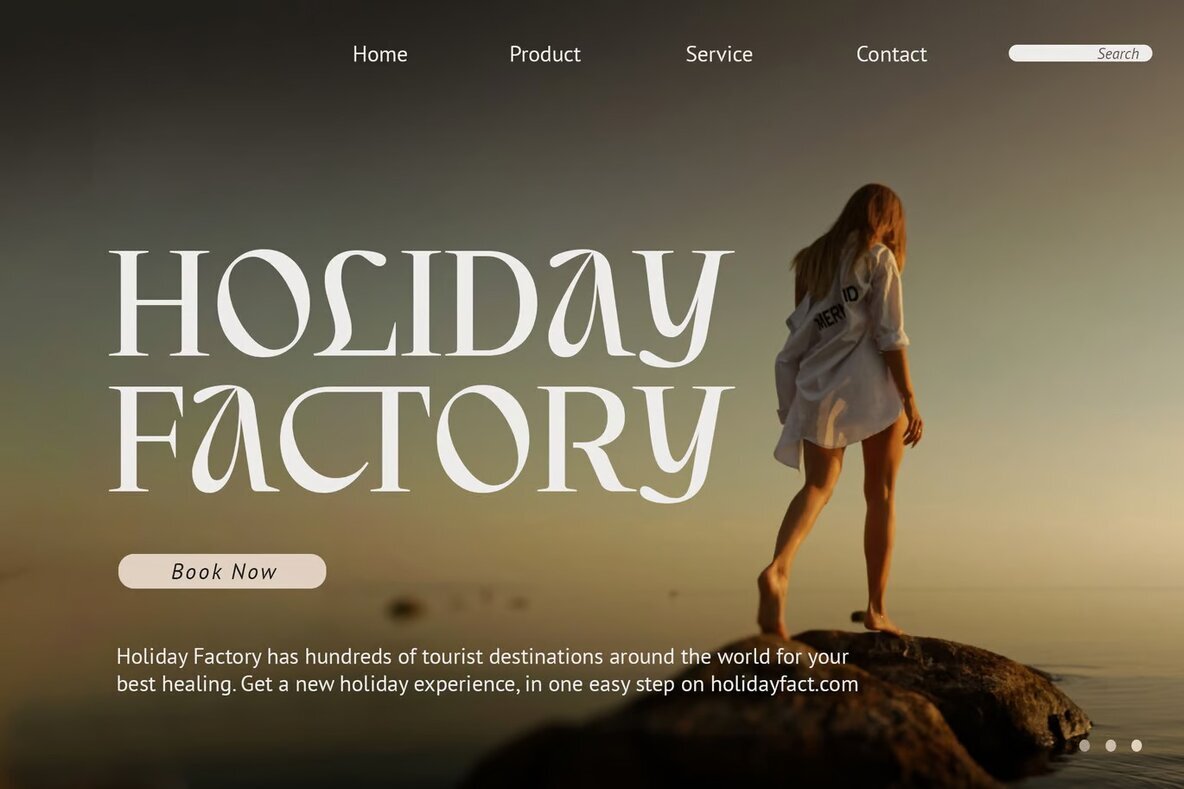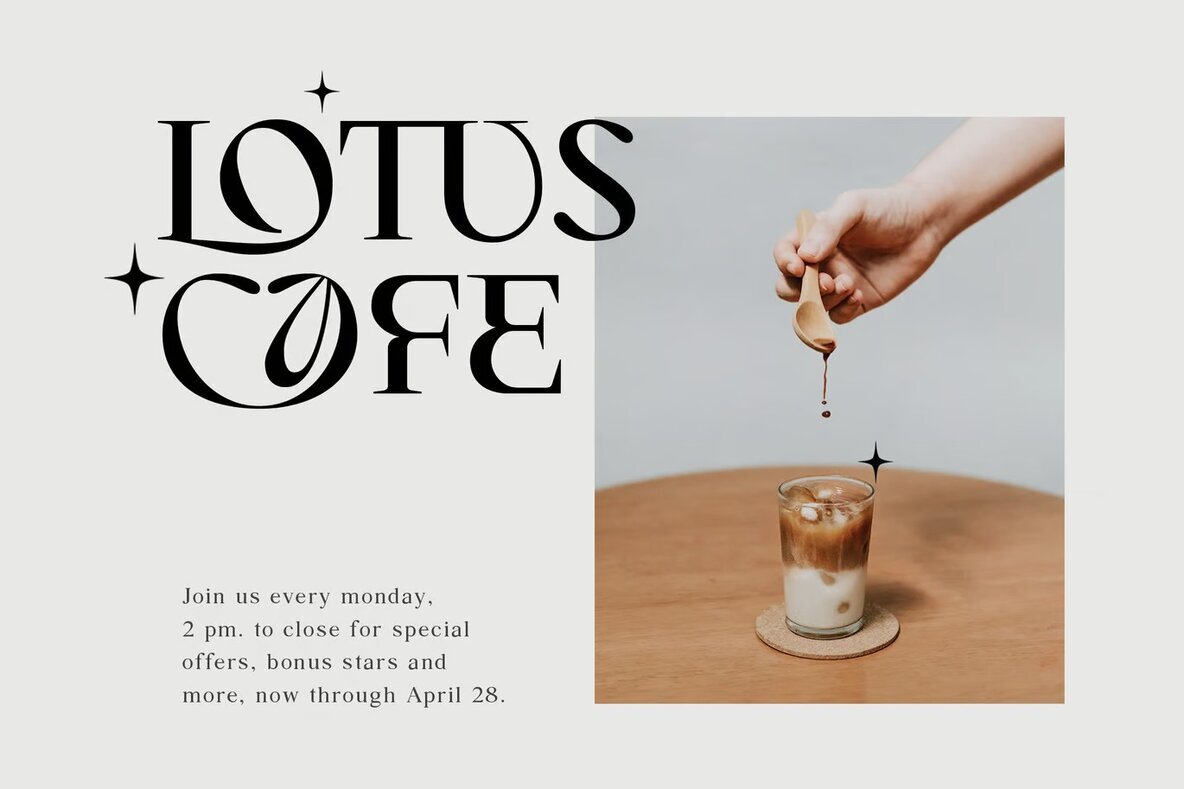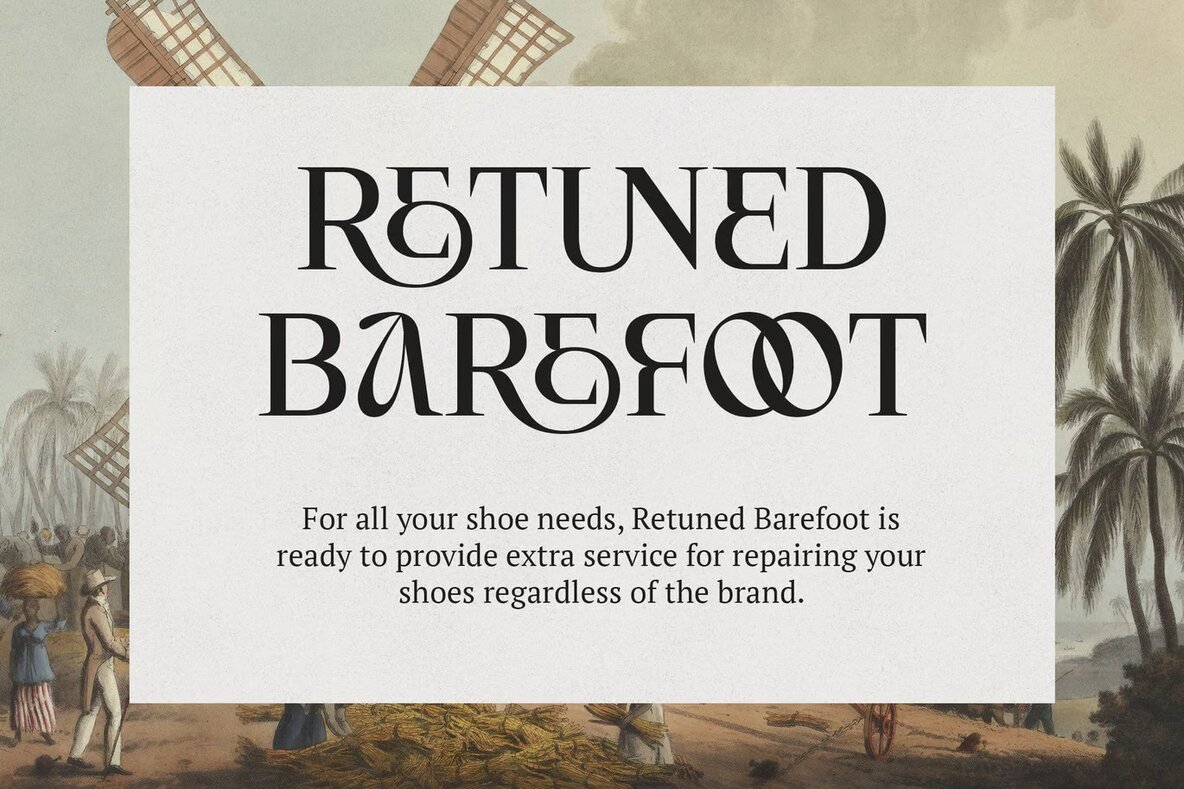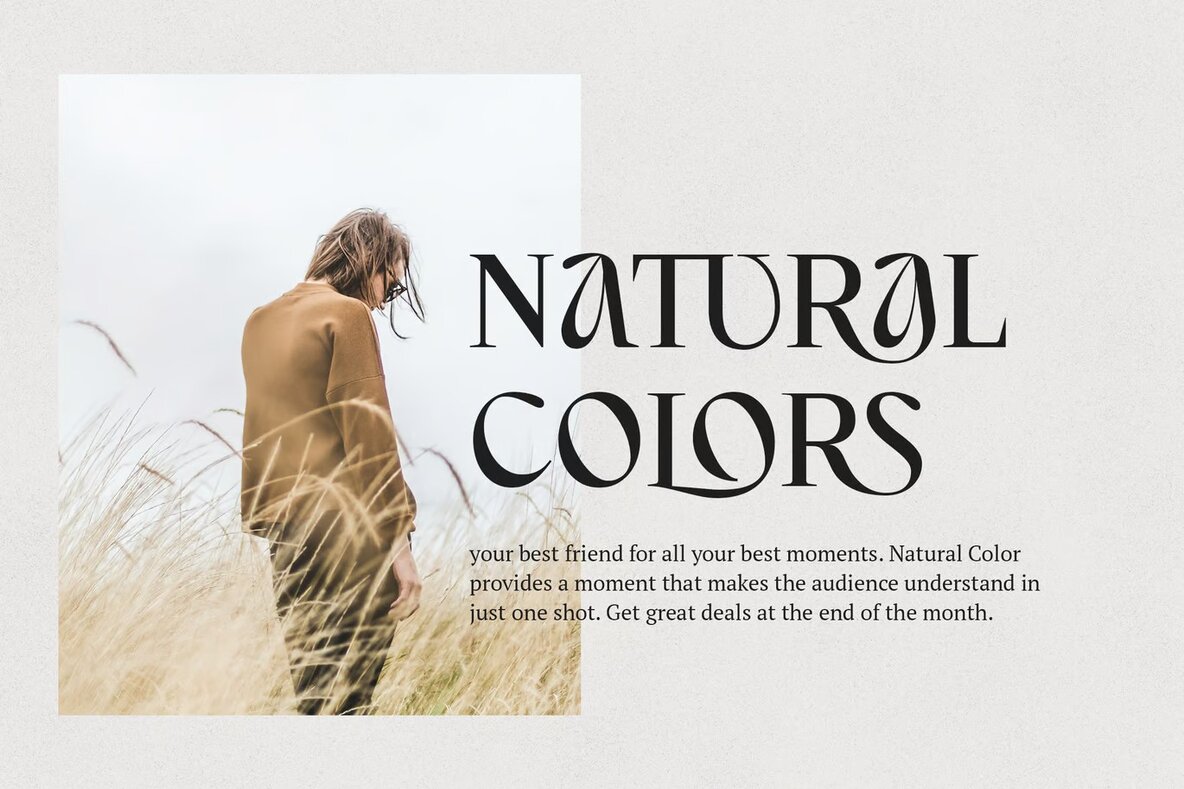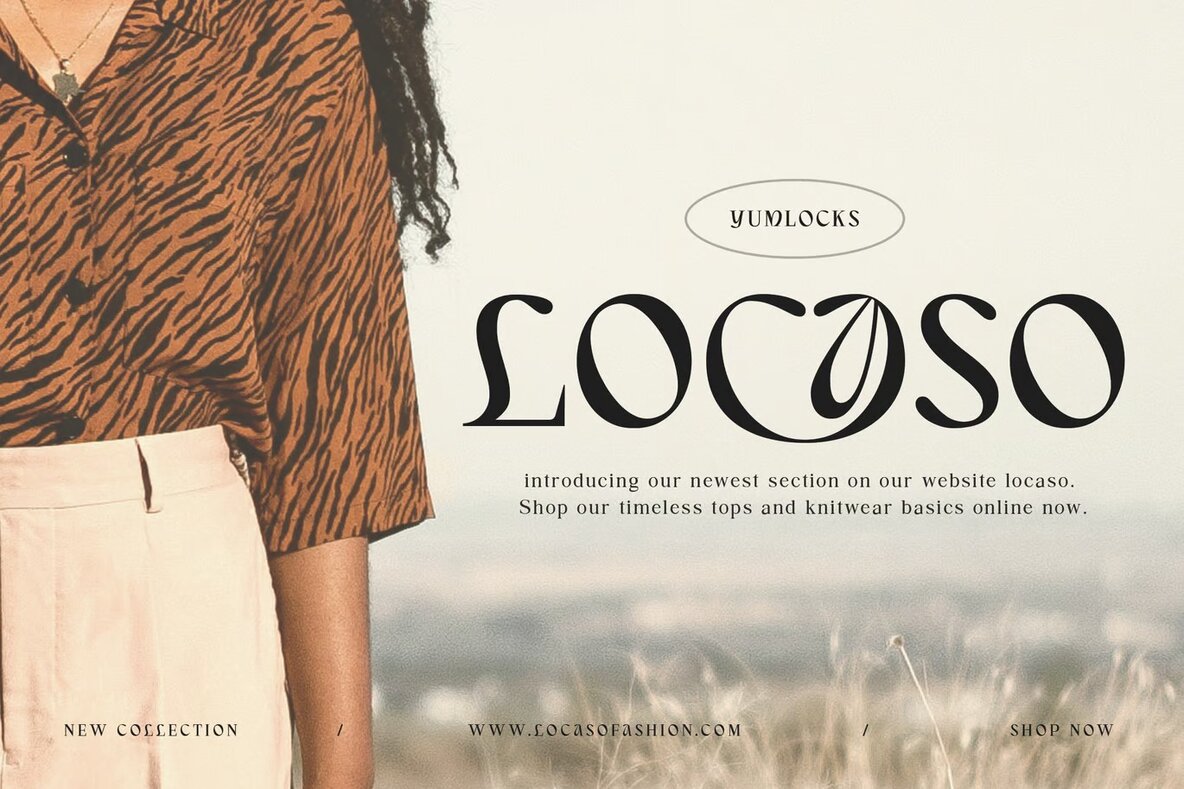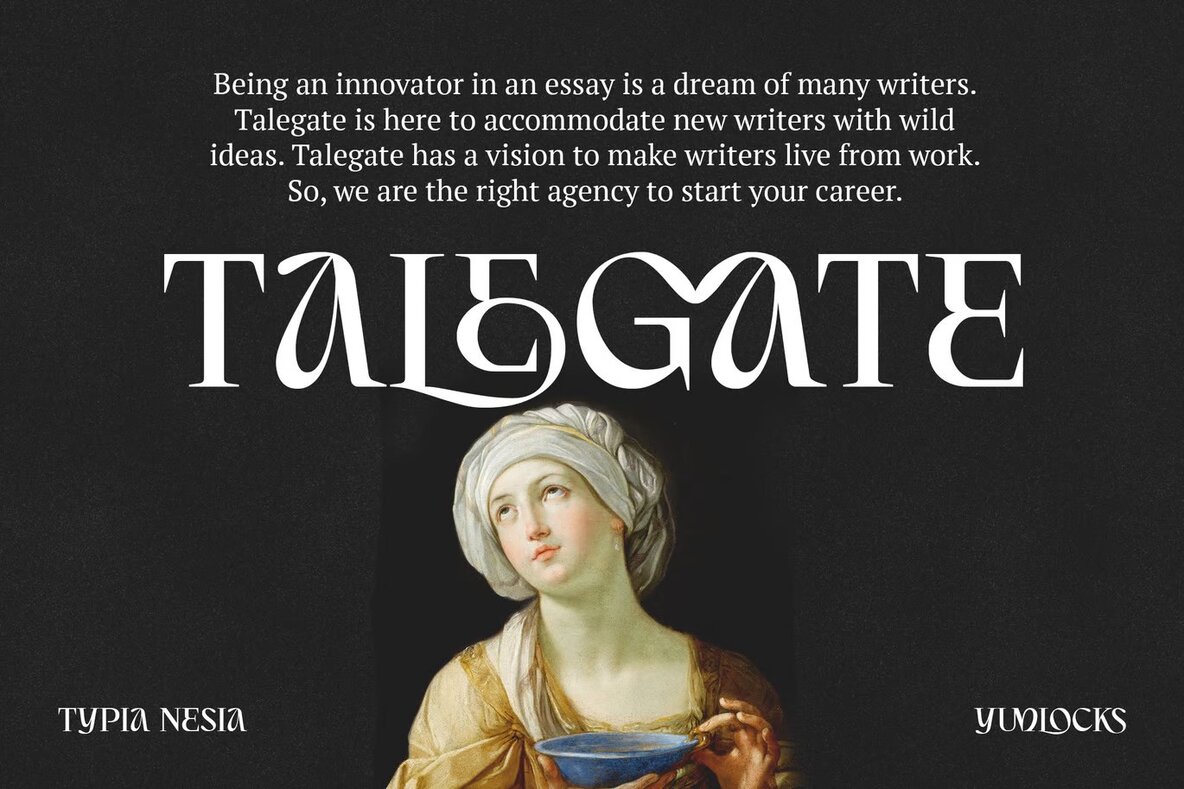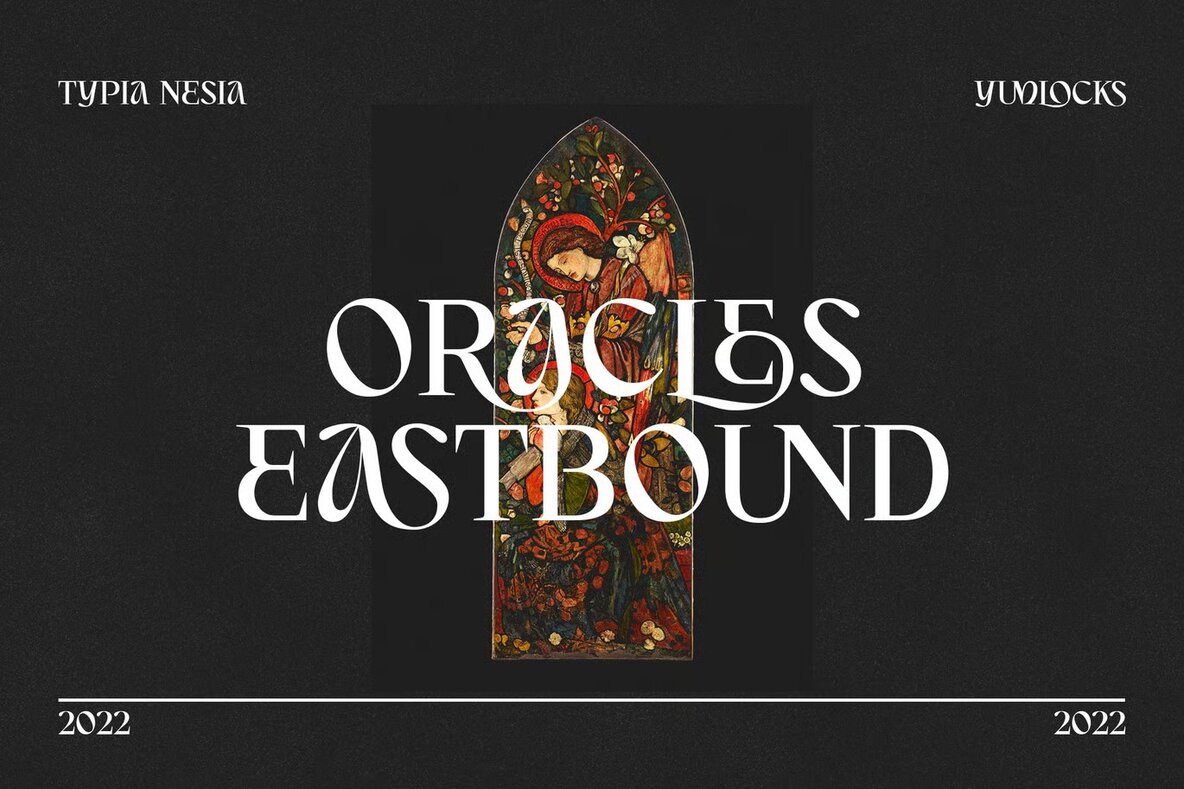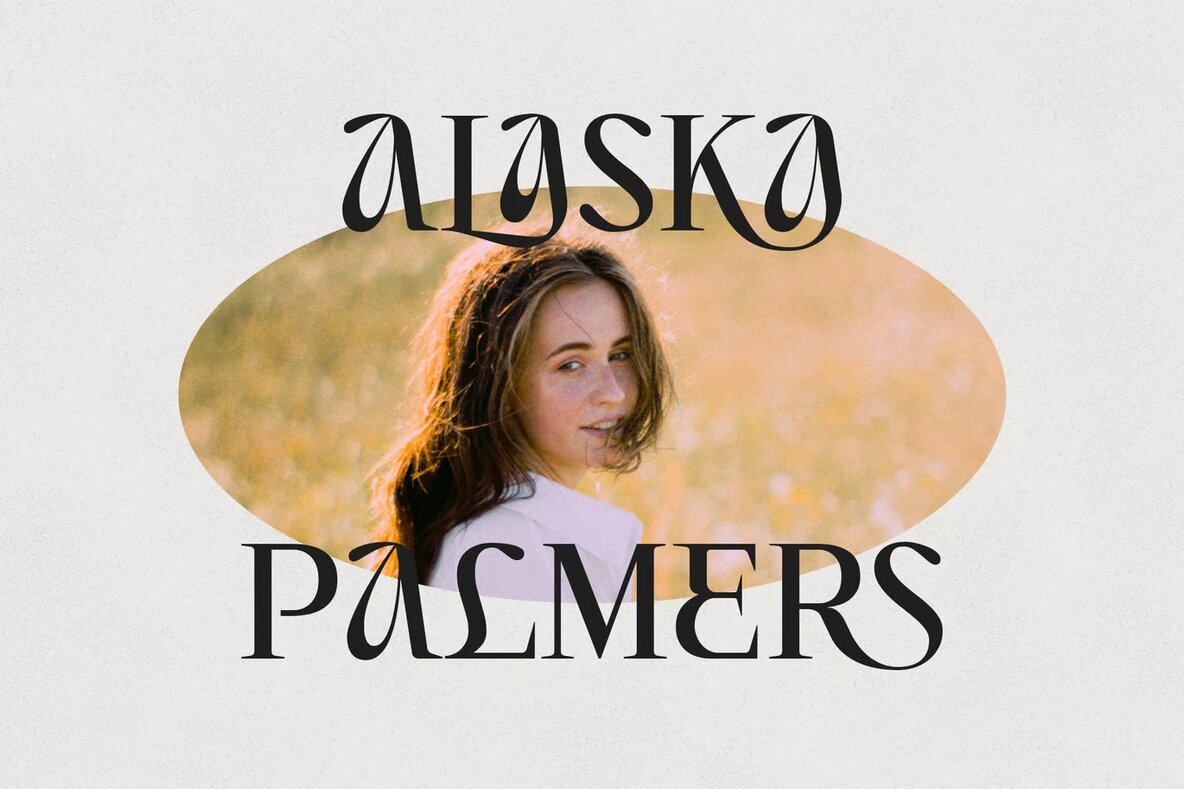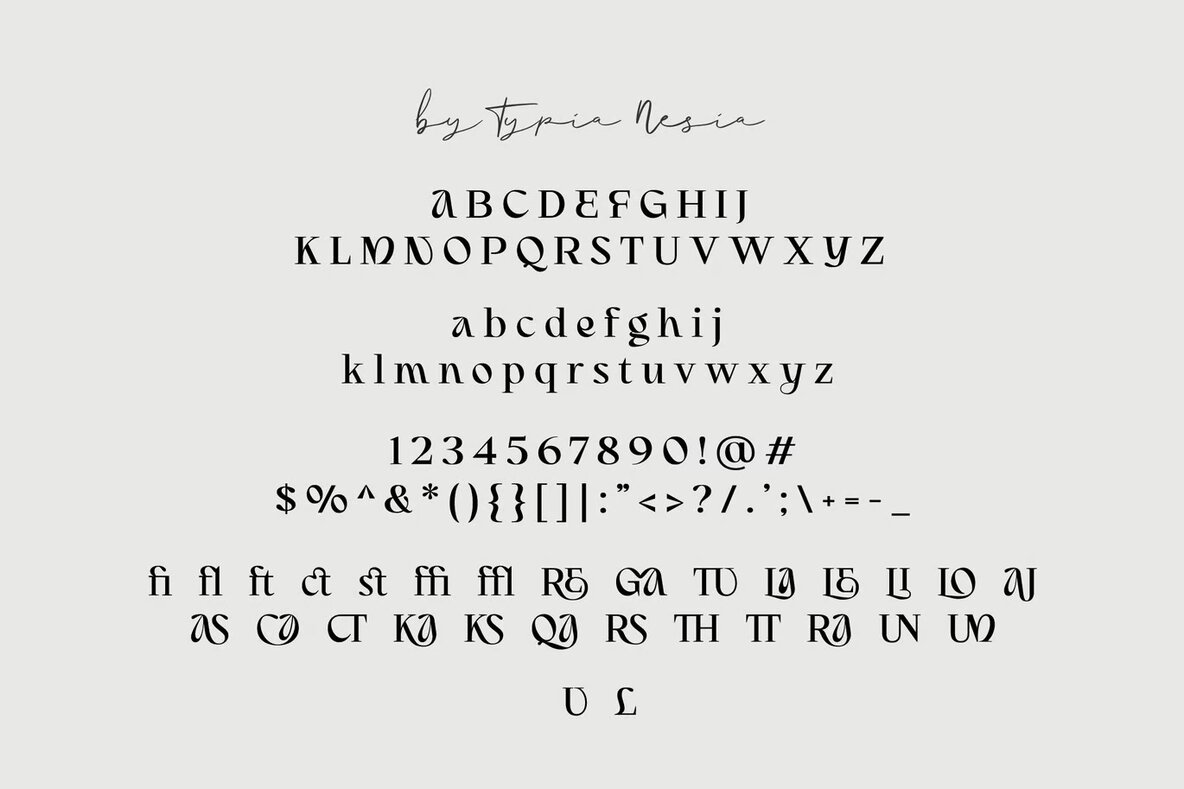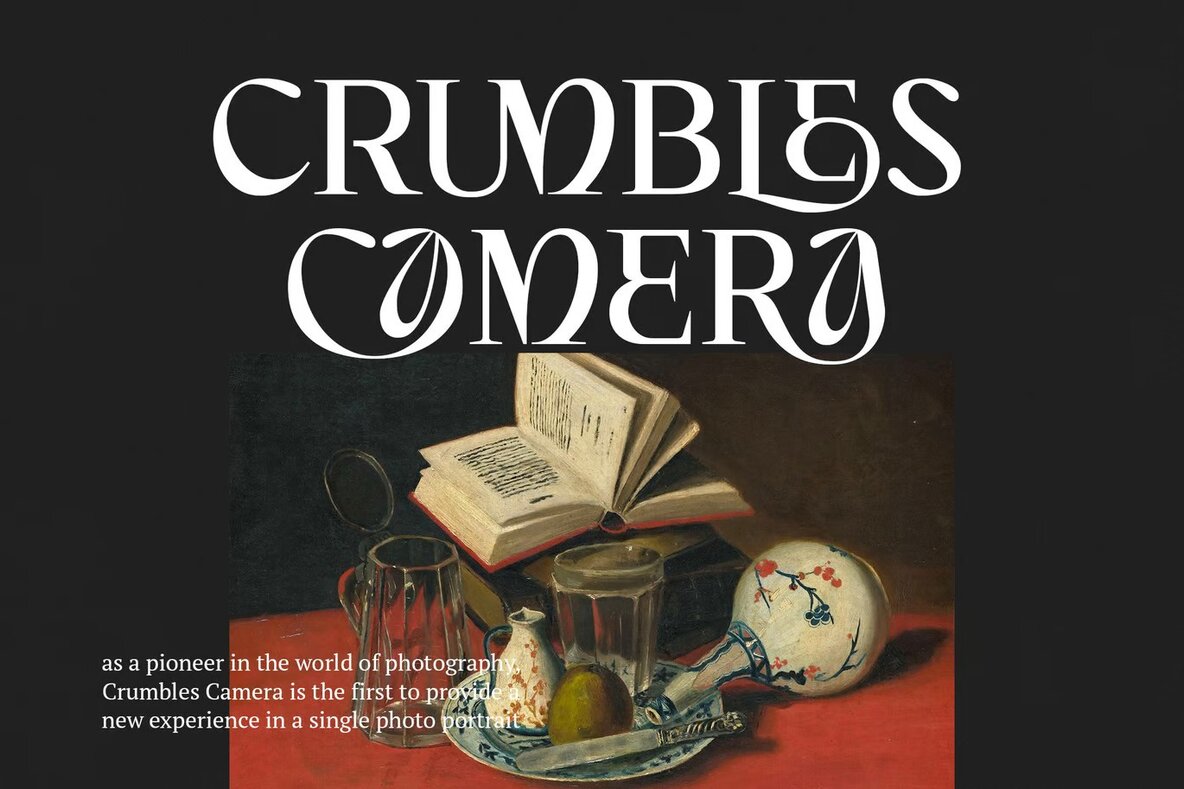
Yumlocks Font
Yumlocks Regular
Yumlock is a bold serif font meticulously crafted to add a touch of vintage fantasy to your projects. Featuring a rich collection of alternates and ligatures, it allows for endless creative typography combinations, making it perfect for diverse design needs. Whether you’re crafting a logo, branding materials, or modern advertisements, Yumlock’s distinctive style will ensure your design stands out.
Ideal for projects ranging from retro and holiday designs to fashion, music, and movie titles, Yumlock brings a unique charm to posters, book covers, and editorial layouts. Its versatile nature also makes it a great fit for website and blog designs, cards, and more. Combine Yumlock’s various stylistic options to create captivating and memorable designs that resonate across different mediums.